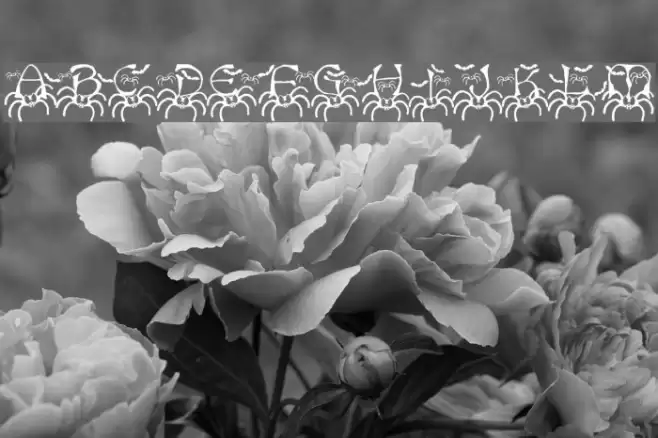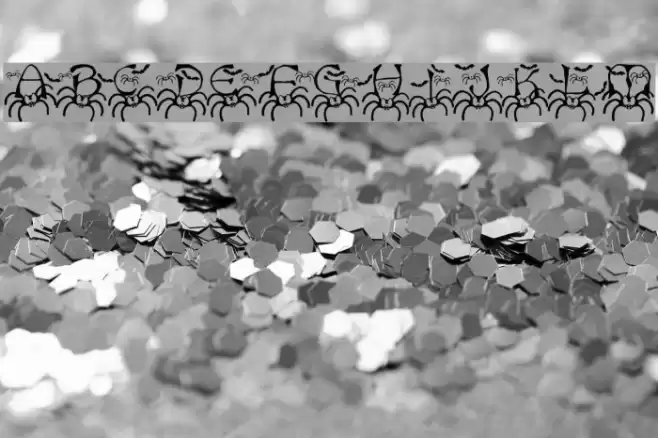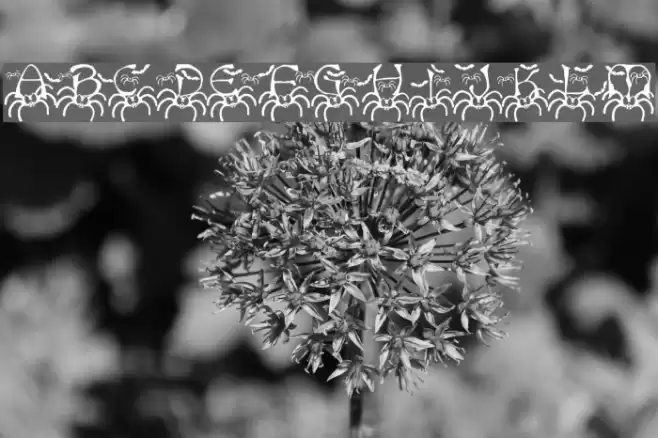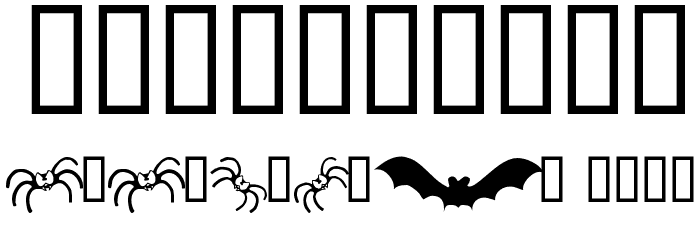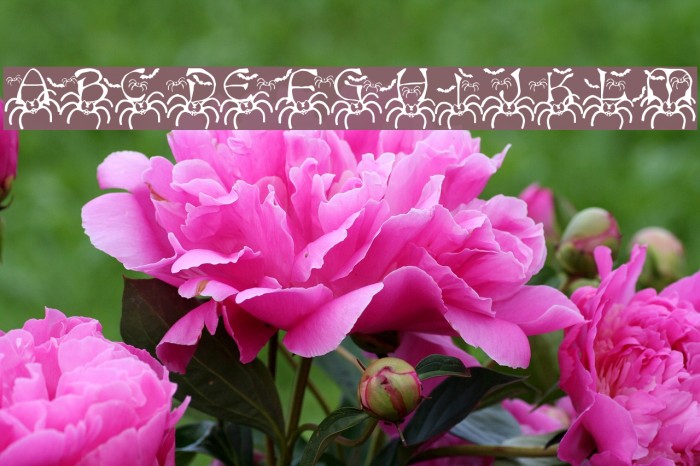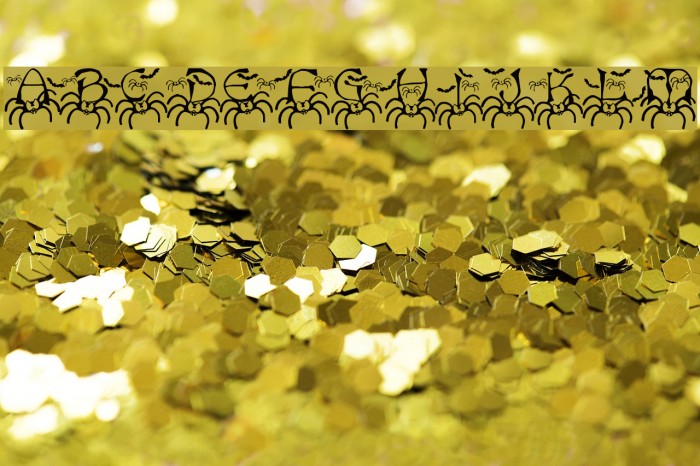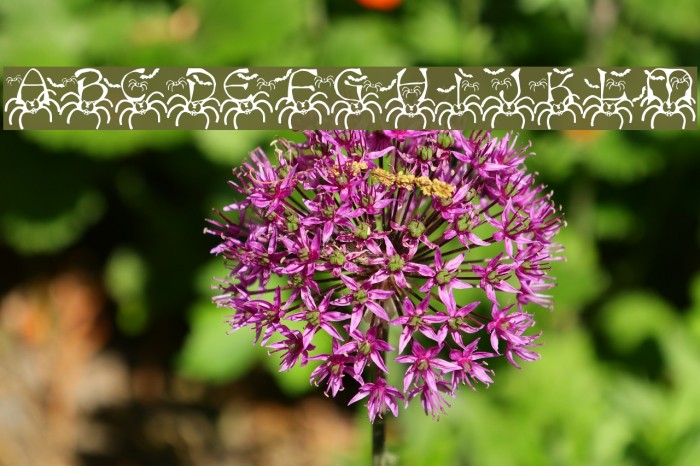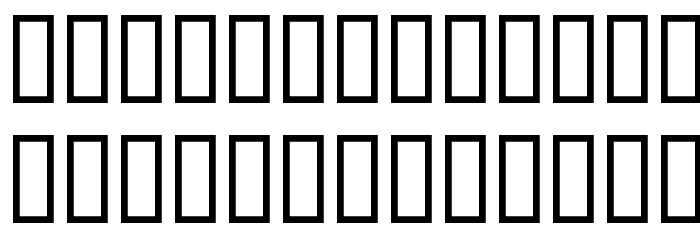
RMSpider2 Font
RMSpider2 Description
This decorative font features an intricate design where each letter is adorned with spider motifs, creating a spooky and whimsical appearance. The uppercase letters are embellished with spider legs and bodies, giving a Halloween-themed aesthetic. The font is highly stylized, focusing on visual impact rather than readability, making it ideal for thematic designs. The absence of lowercase letters and numbers suggests a focus on decorative use rather than practical text applications. The special characters include spider and bat motifs, enhancing the eerie theme.
A decorative font with spider-themed embellishments for a spooky effect from Halloween fonts.
- Proposed Projects: Ideal for Halloween-themed posters, party invitations, haunted house flyers, and any project requiring a spooky, decorative touch.